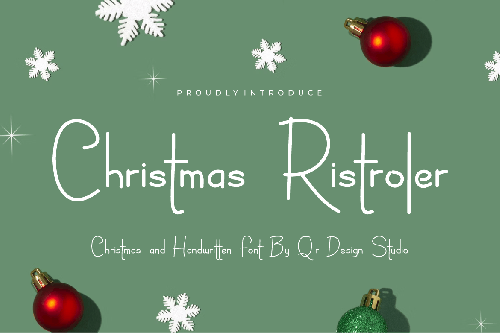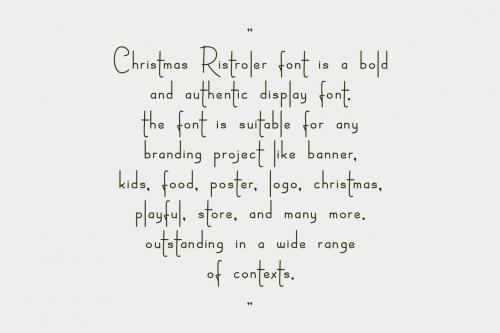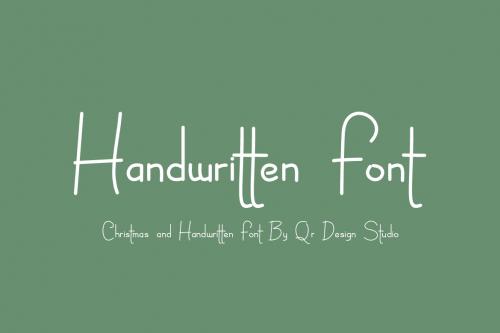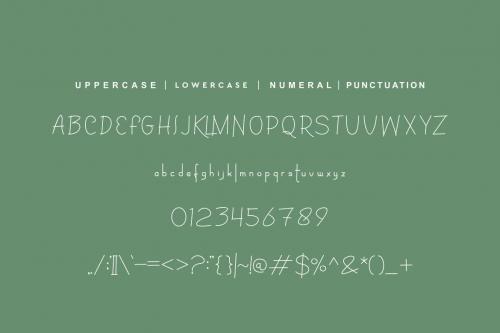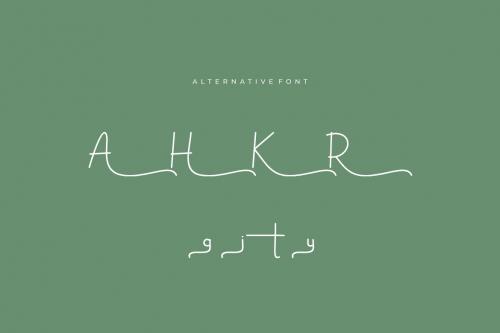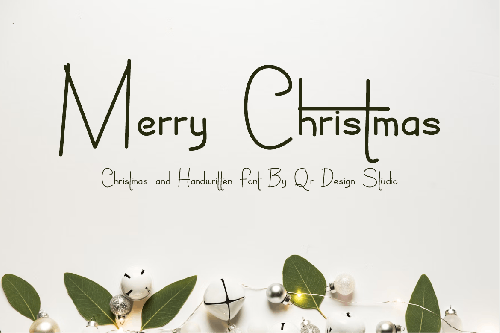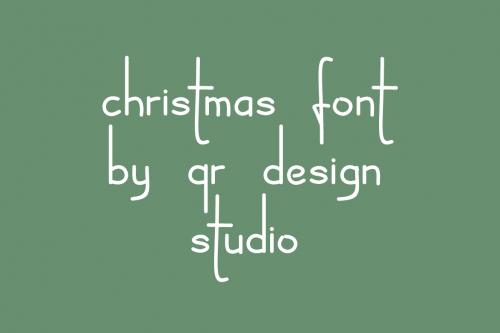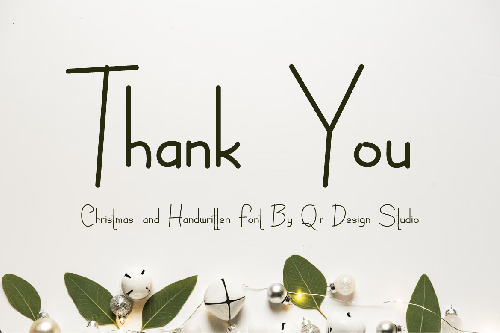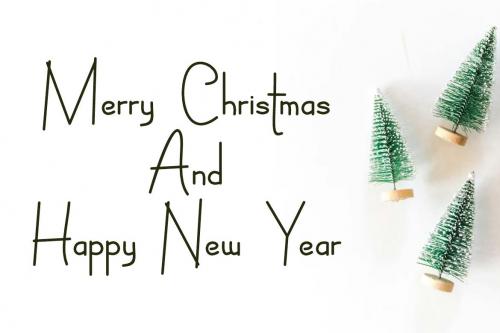
Christmas Ristroler Font
**Christmas Ristroler Font** is a bold and authentic display font.
The font is suitable for any branding project like poster, thanksgiving, christmas, logo, sport, and many more.
Outstanding in a wide range of contexts.